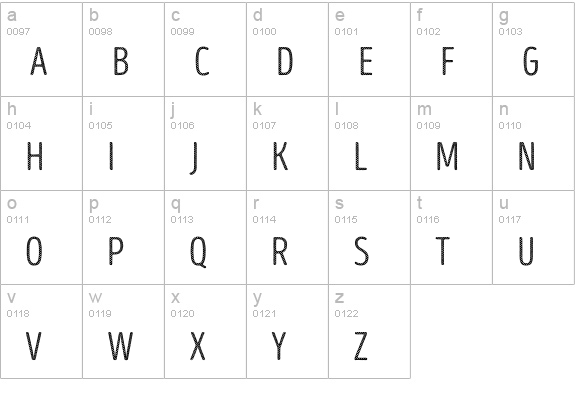
The Intro Head R UC H1 Base font is a stunning display typeface that exudes elegance and sophistication. With its refined letterforms and sharp edges, this font is perfect for creating eye-catching headlines and titles that demand attention. The generous spacing and clean lines of the Intro Head R UC H1 Base font make it a versatile choice for a wide range of design projects, from branding to editorial design. Best of all, this font is available for free download at FontsMarket.com. Whether you're a seasoned designer looking to add a new font to your collection or a beginner seeking a stylish typeface for your next project, the Intro Head R UC H1 Base font is a fantastic choice. Don't miss out on the opportunity to enhance your designs with this exceptional font - download it today and take your typography to the next level!